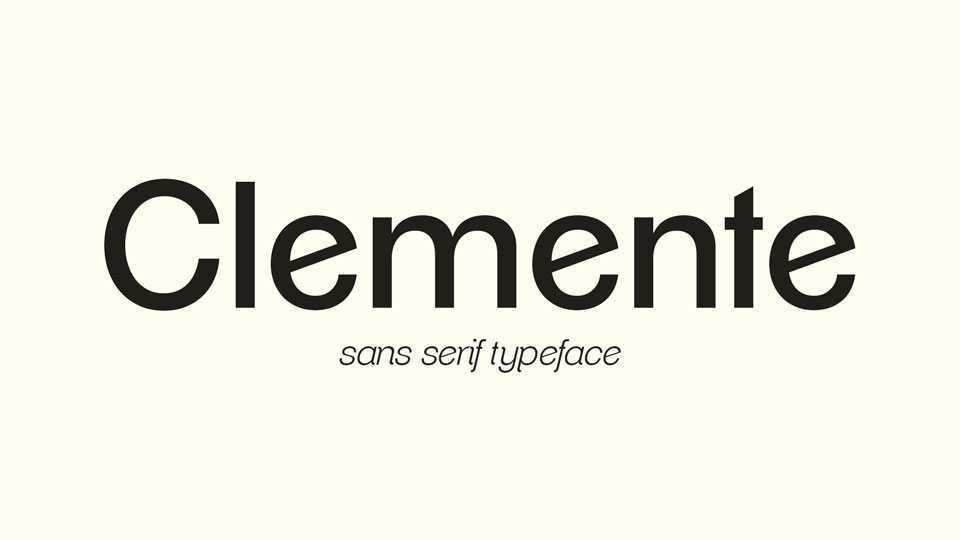
Download Clemente typeface, an elegant sans serif font family in nine weights and Italics with unique angles of letters. Clemente can be used in wide range projects from branding, merchandise, social media.
Designer: Alan Prescott